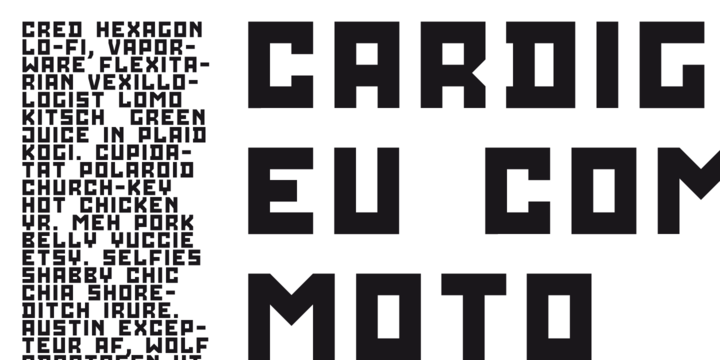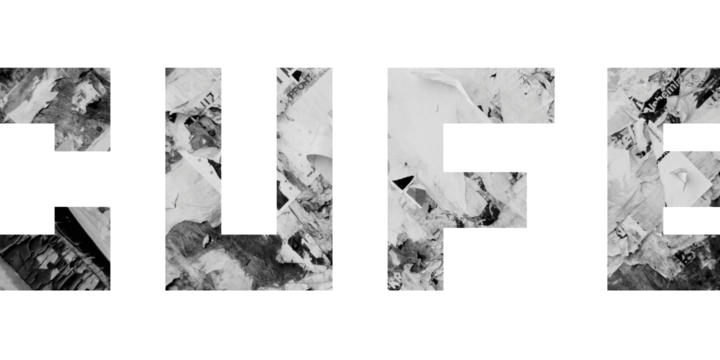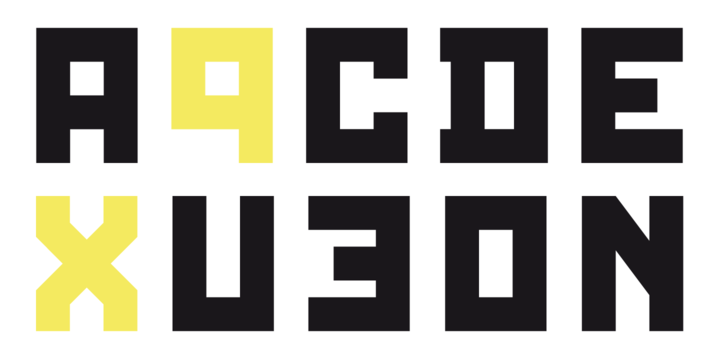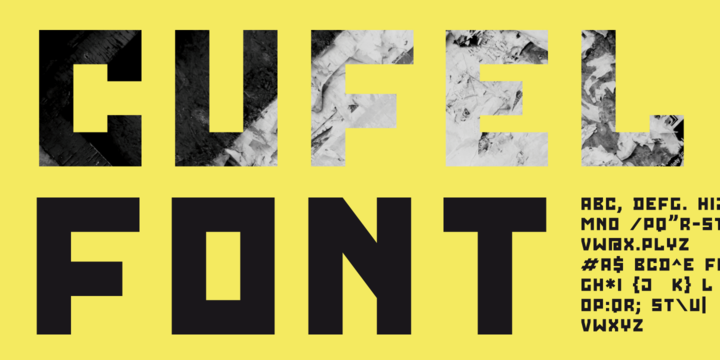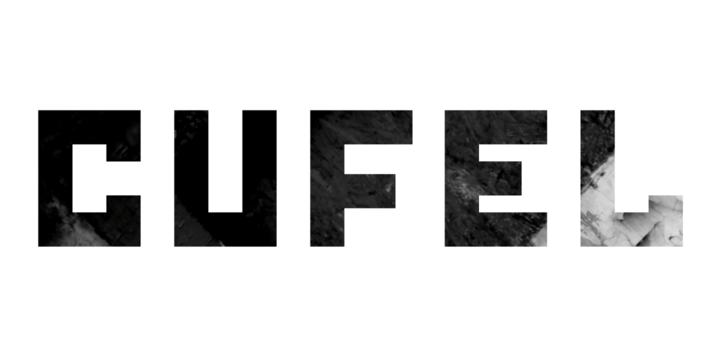
CUFEL is a futuristic all-caps display typeface with geometric forms, designed by Bartosz Panek.
A font created initially for a series of futuristic posters. The style of the letters also refers to the earlier pixel fonts from Fontsphere, but with a view to the direction in a more friendly and flexible in creating many types of graphisc.
Best for bold, expressive headlines, posters, billboards and of course brand identities.
Fits well with photos.